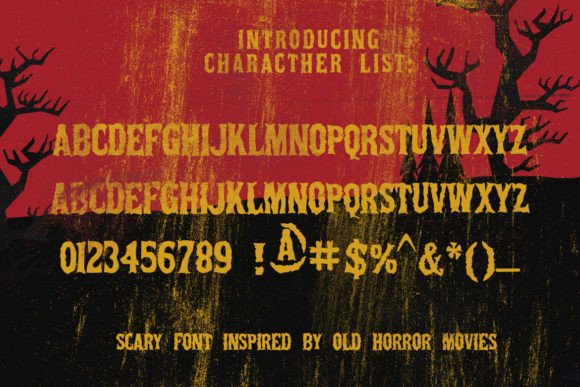
Deep Horror is a cool display font inspired by old horror movies. Spooky and mysterious, this font will be great for all your projects that need a dramatic look.